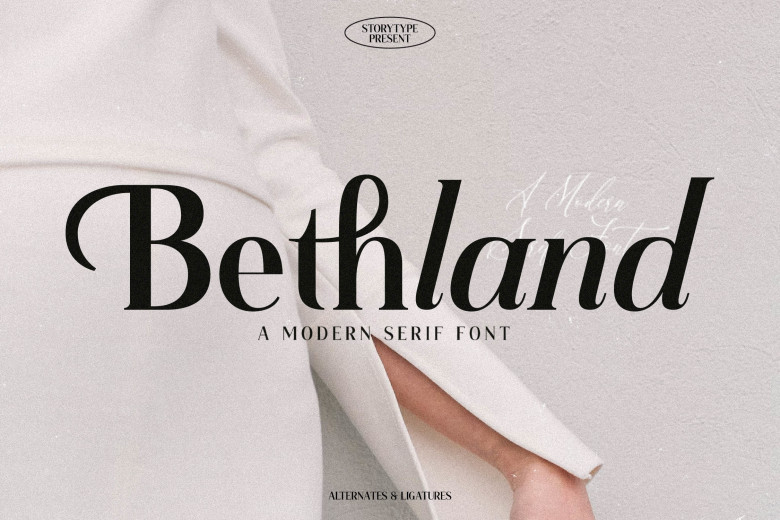
Bethland Font
I am glad to present this Typeface that was named Bethland created by Storytype. Bethland is a serif modern and classic typeface that has a unique style and looks modern as well. Bethland is perfect for an elegant & luxury logo, book or movie title design, fashion brand, magazine, clothes, lettering, quotes, and so much more.
Bethland Modern Serif Font